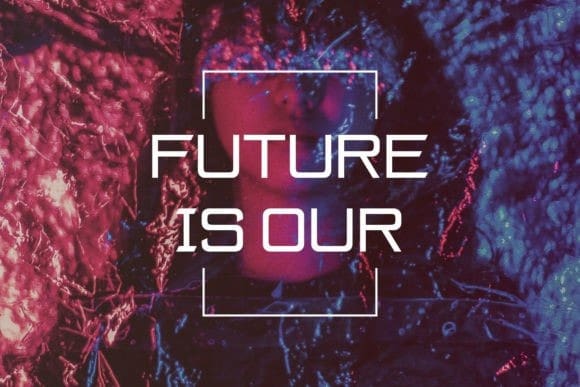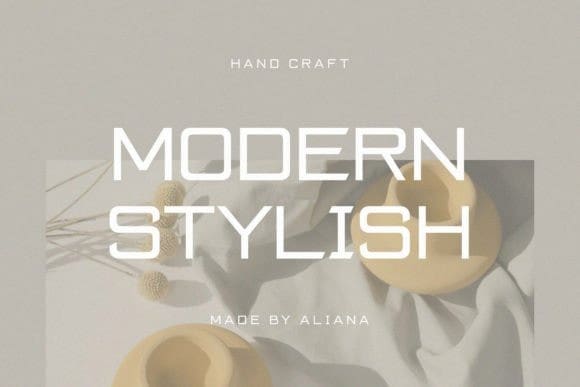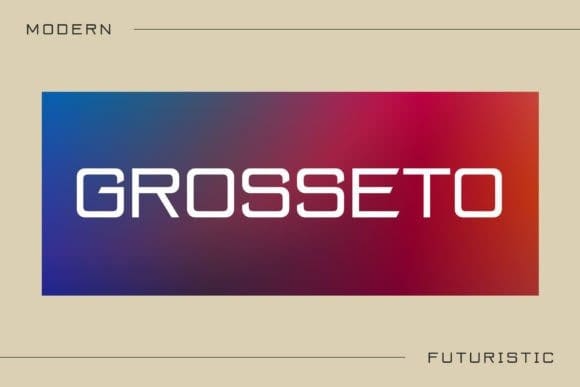
Grosseto Font
Grosseto Font is a futuristic and modern typeface, best used as a display for headings, logos, branding, magazines, product packaging, and invitations. Grosseto comes with clean lines and smooth curves, giving any project an extra touch of class.